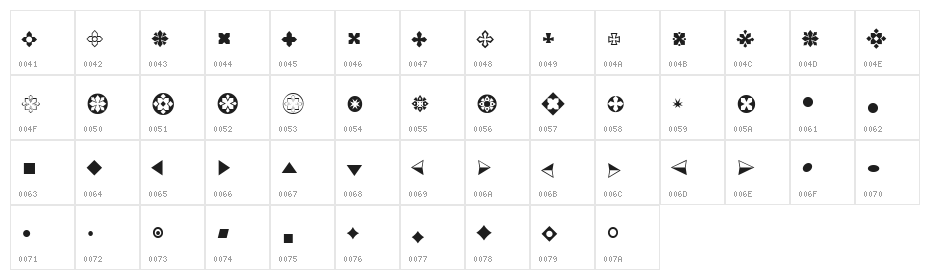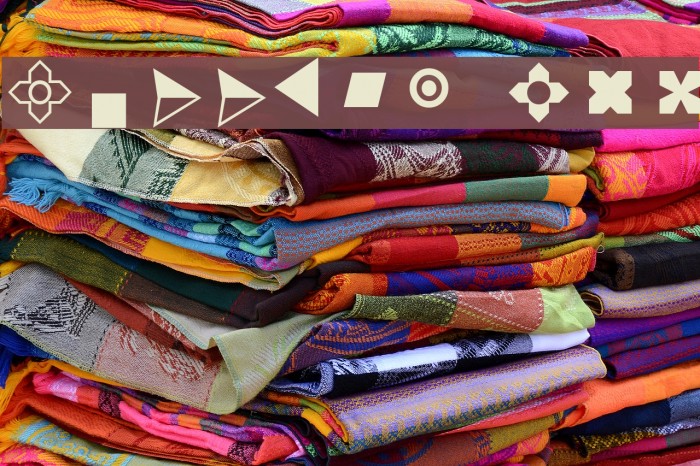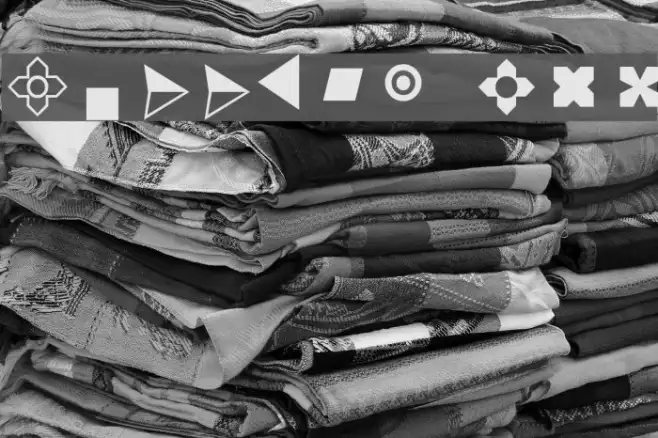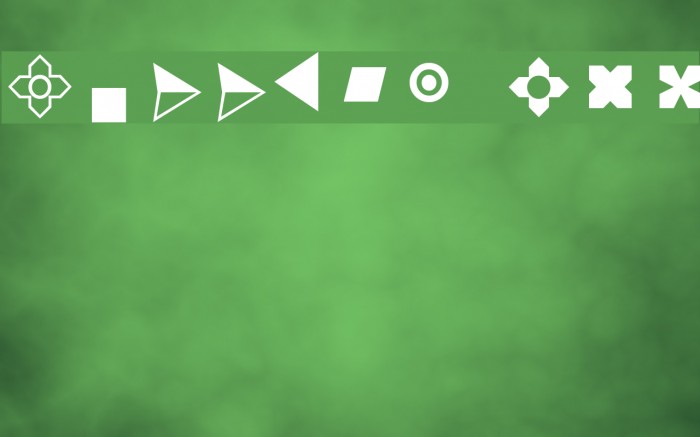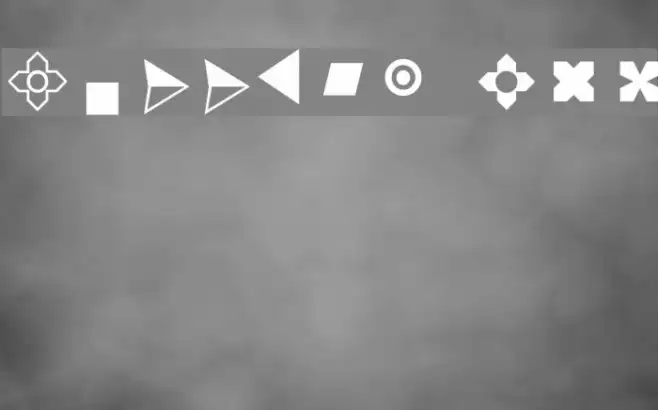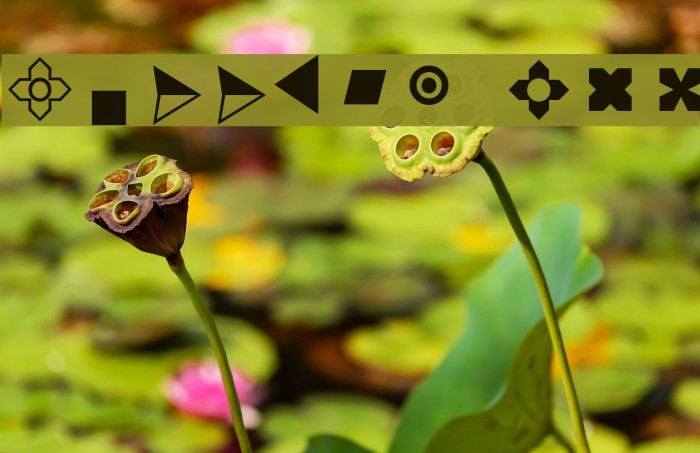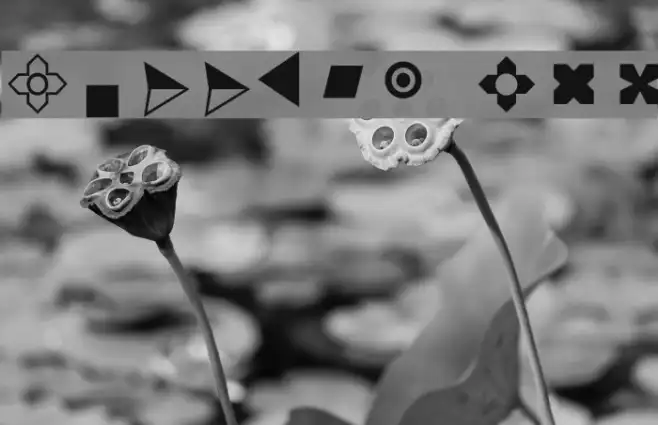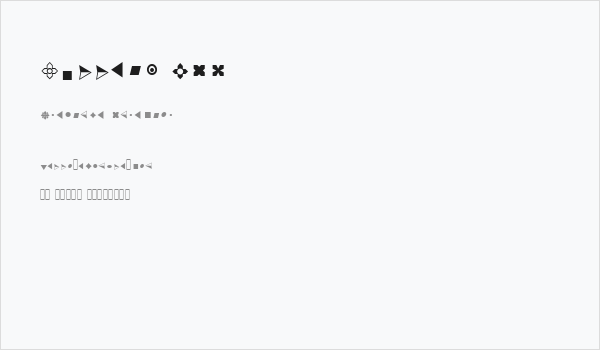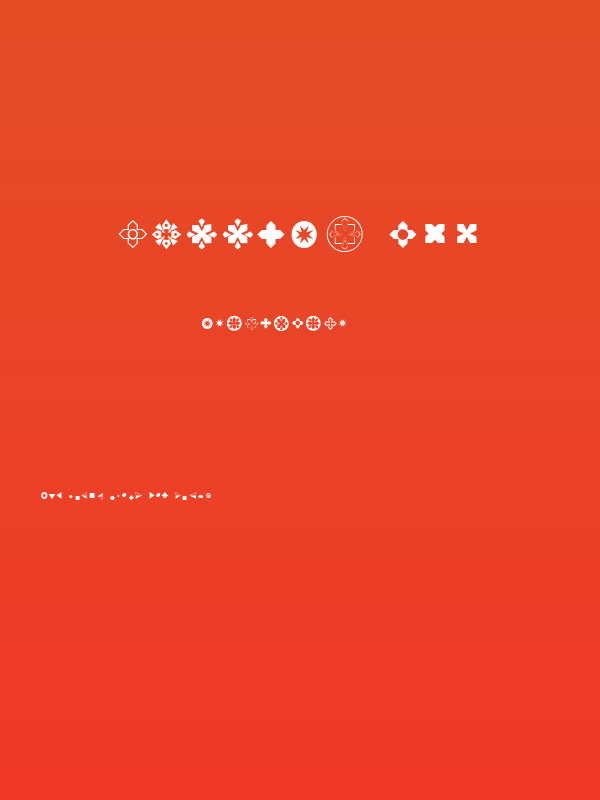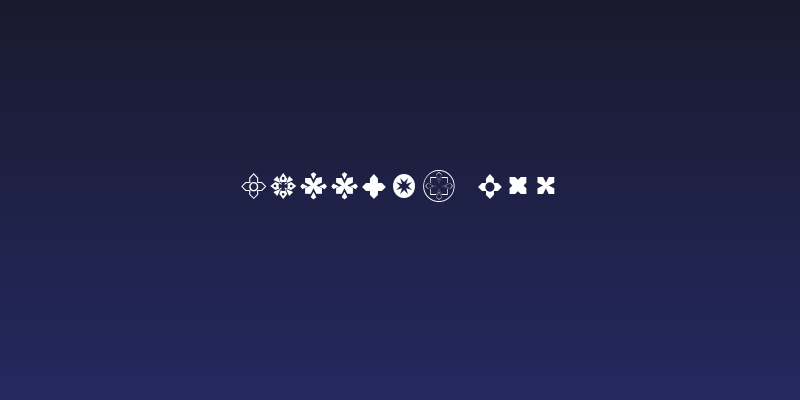
Bullets ADF Font
Bullets ADF Description
This collection features a diverse array of bullet designs, each with a unique geometric or symbolic shape. The designs range from simple circles and squares to more intricate patterns resembling stars, arrows, and crosses. The bullets are presented in both solid and outlined forms, offering a variety of visual weights and styles. These elements are ideal for adding decorative touches to documents, presentations, or digital content, providing a creative alternative to standard bullet points. The assortment includes symmetrical and asymmetrical designs, catering to different aesthetic preferences and project needs.
| Use Case | Logos, Decorative elements, Bullet points |
| Proposed Projects | Ideal for enhancing presentations, documents, digital content, and creative projects with decorative bullet points. |